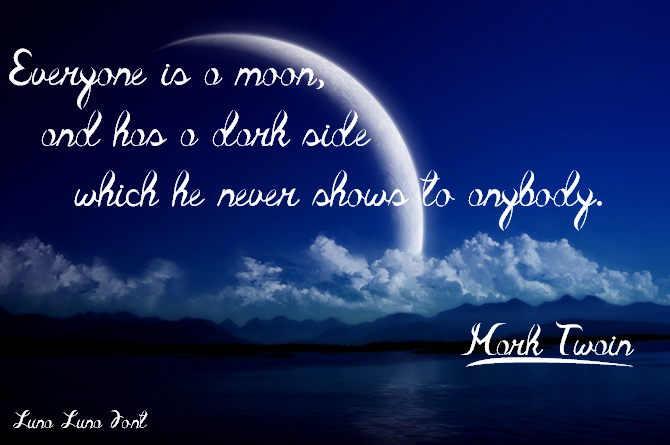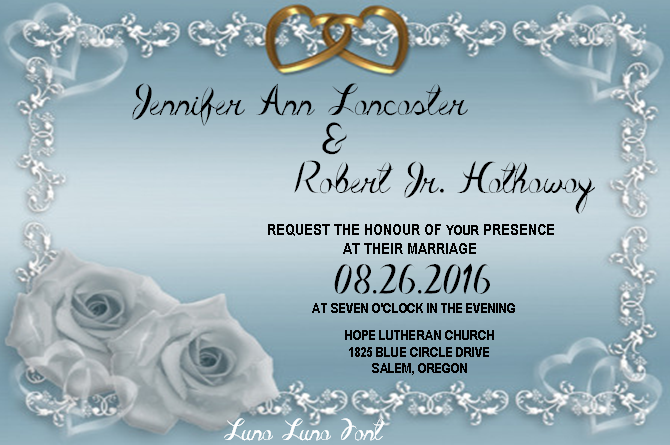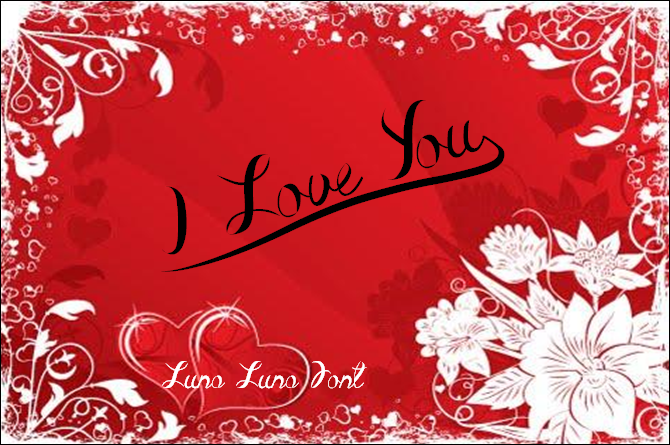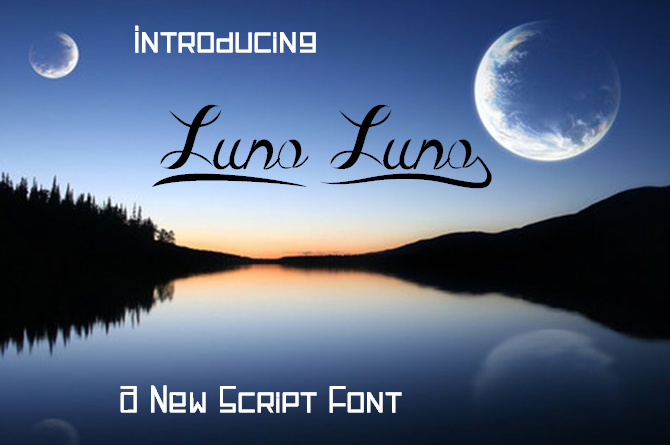
Introduction to Luna Luna Font
Luna Luna is a fun script that comes with a separate font for swashes (includes a total of 20 swashes).
Luna Luna Font offers exceptional quality and versatility, making it a valuable addition to your design toolkit. Whether you’re creating for personal projects or commercial use, Luna Luna Font delivers professional results.